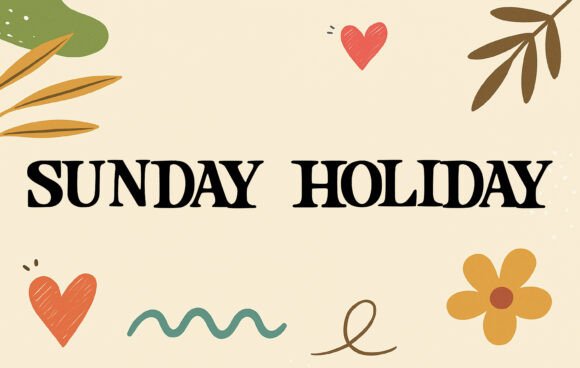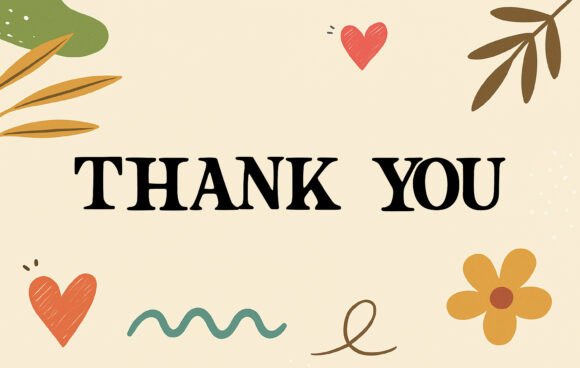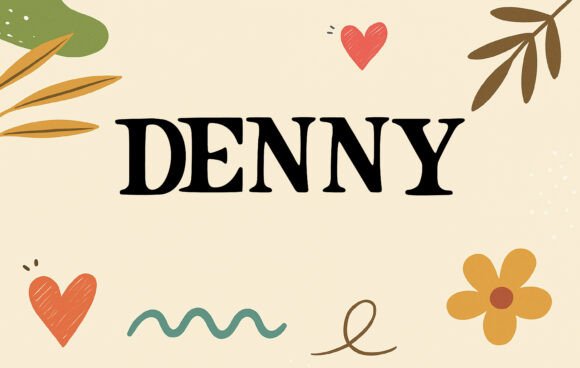
Discover the Versatility of Denny Font: Elevate Your Designs with Style
In the world of typography, fonts play a crucial role in bringing creative ideas to life. Among the numerous fonts available, Denny Font stands out as a true favorite among designers and crafters. This versatile font is designed to take your creative projects to new heights, offering a perfect blend of legibility and style. Whether you’re working on magazine headlines, t-shirts, social media graphics, branding materials, wedding invitations, or cards, Denny Font is an excellent choice.
What Makes Denny Font Special?
Denny Font is crafted to be highly legible, making it suitable for both title and body text. Its clean and elegant design ensures that your message is conveyed with clarity and sophistication. This font’s versatility is one of its most significant advantages, allowing you to experiment with various design projects without compromising on style or readability.
Endless Design Possibilities with Denny Font
Denny Font’s adaptability makes it an ideal choice for a wide range of design projects. Here are some of the many ways you can utilize this fantastic font:
- Magazine Headlines: Create eye-catching titles that grab readers’ attention with Denny Font’s bold and stylish appearance.
- T-Shirts and Apparel: Design custom t-shirts, hoodies, and other apparel with Denny Font’s unique style that will make your brand or message stand out.
- Social Media Graphics: Elevate your social media presence with engaging graphics, posts, and stories that showcase Denny Font’s versatility.
- Branding and Logo Design: Establish a strong brand identity with Denny Font’s clean and professional look, perfect for logos, business cards, and letterheads.
- Wedding Invitations and Cards: Add a touch of elegance to your wedding invitations, greeting cards, and other stationery with Denny Font’s sophisticated design.
Why Choose Denny Font?
With so many fonts available, why should you choose Denny Font for your projects? Here are a few compelling reasons:
- Legibility: Denny Font is designed to be easily readable, ensuring that your message is conveyed clearly and effectively.
- Style: This font boasts a unique and stylish appearance that will elevate your designs and make them stand out.
- Versatility: Denny Font’s adaptability makes it suitable for a wide range of design projects, from print to digital media.
Tips for Getting the Most Out of Denny Font
To maximize the potential of Denny Font, consider the following tips:
- Experiment with Sizes: Denny Font looks great in various sizes, from large headlines to smaller body text.
- Play with Colors: Try different color combinations to find the perfect match for your design and brand.
- Mix and Match: Combine Denny Font with other fonts to create a unique and visually appealing design.
- Pay Attention to Kerning: Adjust the kerning to ensure that your text is evenly spaced and visually appealing.
Denny Font is a versatile and stylish font that can elevate your designs to new heights. Its legibility, style, and adaptability make it an excellent choice for a wide range of projects, from magazine headlines to wedding invitations. With Denny Font, you can bring your creative ideas to life and create stunning designs that leave a lasting impression.